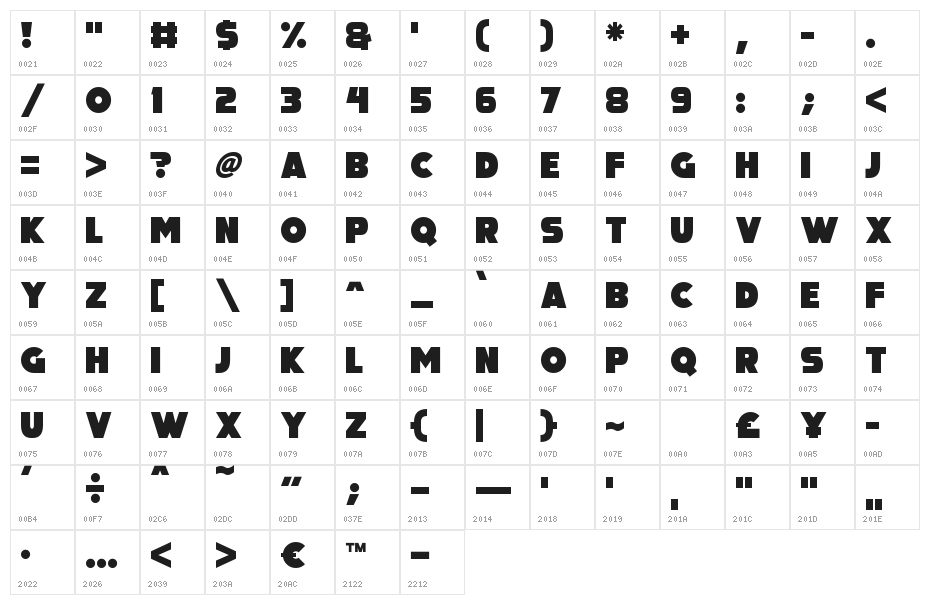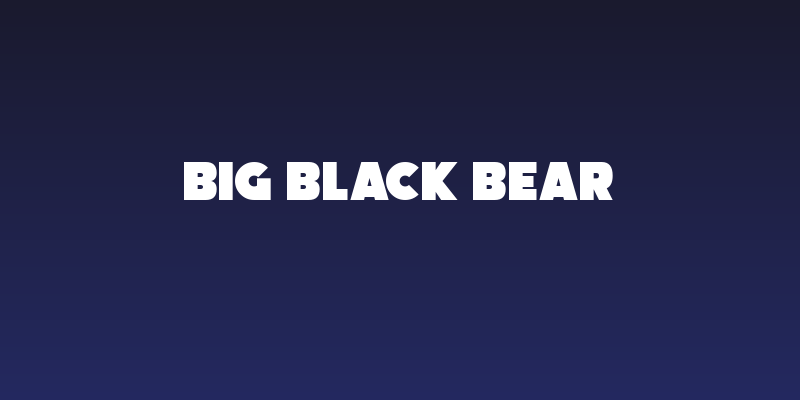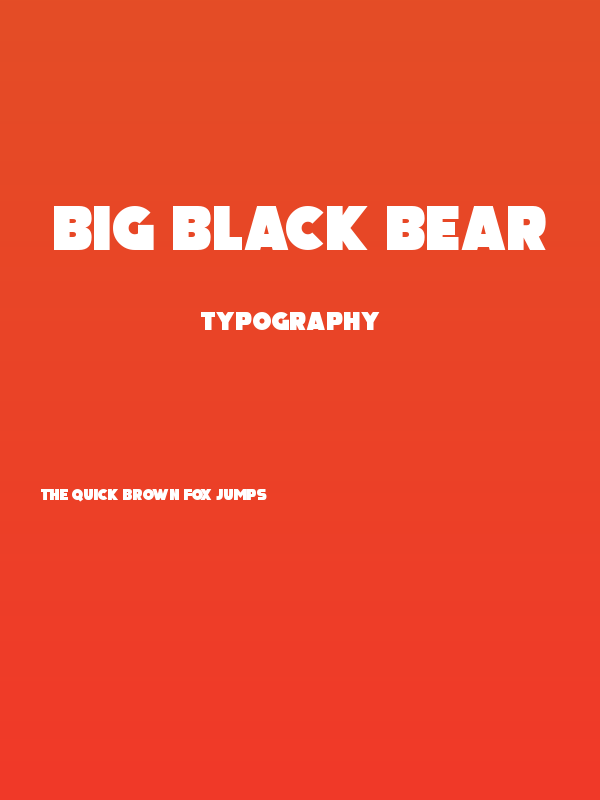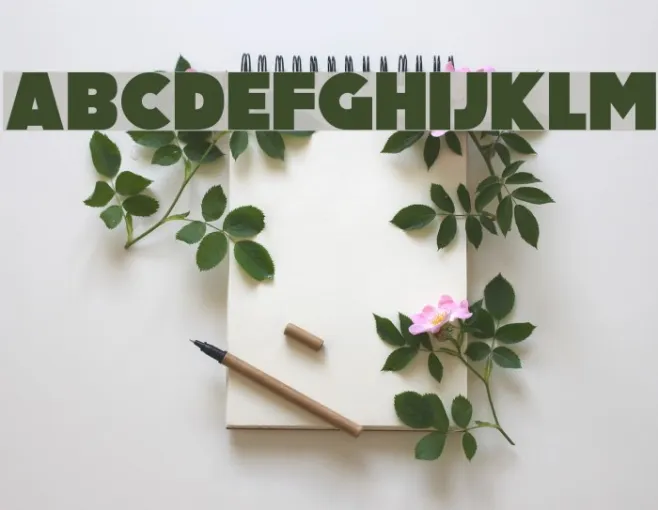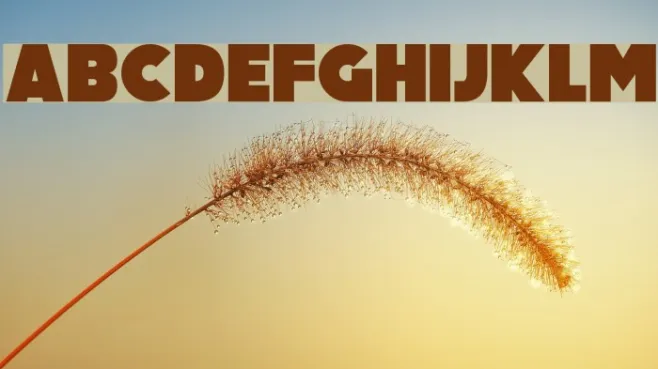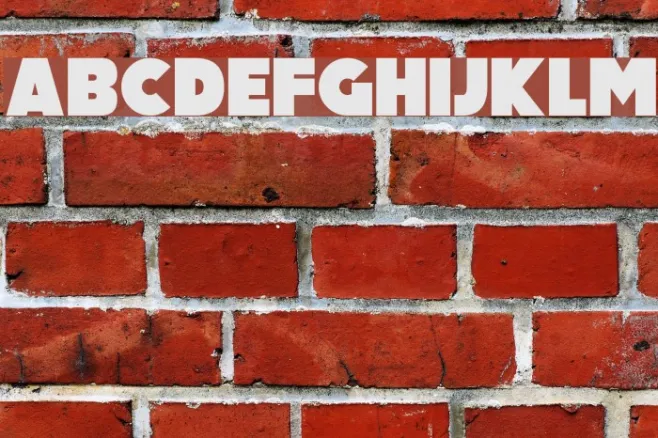
Big Black Bear Font
Big Black Bear Description
This font is a bold, impactful typeface characterized by its thick, heavy strokes and geometric shapes. The uppercase and lowercase letters maintain a consistent weight, creating a strong visual presence. The numbers and special characters follow the same design principles, ensuring uniformity across all glyphs. The font's design is straightforward yet powerful, making it suitable for attention-grabbing headlines and designs that require a commanding presence. Its boldness is complemented by a modern aesthetic, with clean lines and a lack of serifs, giving it a contemporary feel.
| Proposed Projects | Ideal for posters, headlines, branding, and any design needing a bold statement. |